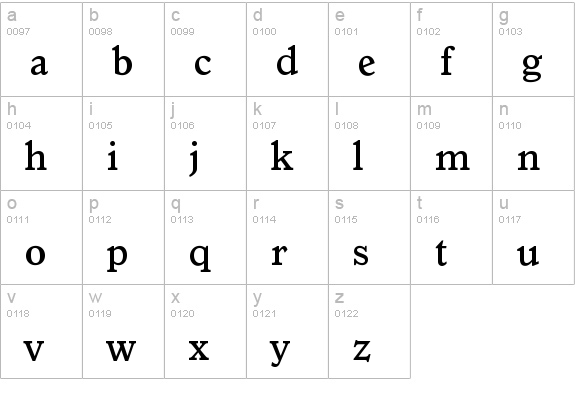
Granada-Medium is a balanced, medium-weight variant in the Granada typeface family \xE2\x80\x94 well suited to sub-headlines, navigation, and balanced editorial work.
Granada-Medium is a versatile and elegant font that exudes sophistication and modernity. With a perfect balance of classic and contemporary elements, this font is ideal for a wide range of design projects, from branding to editorial design. Its clean lines and subtle curves give a sense of refinement and professionalism, making it perfect for both headlines and body text. One of the best things about Granada-Medium is that it is available for free download at FontsMarket.com. This means that you can easily access this high-quality font without any cost, making it a valuable addition to your font library. Whether you are working on a personal project or a client's design, Granada-Medium is sure to elevate your work with its timeless appeal and versatility. Download this font today and see how it can enhance your designs with its unique charm and style.